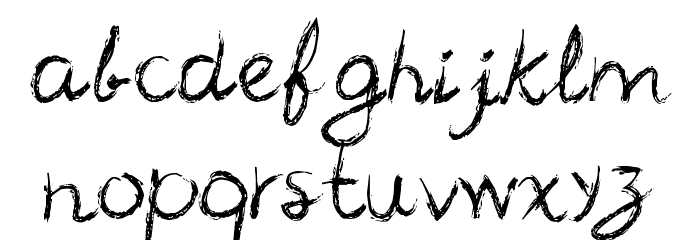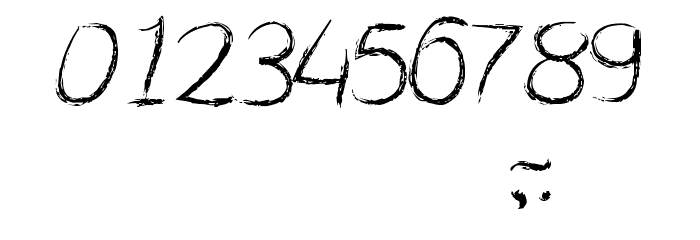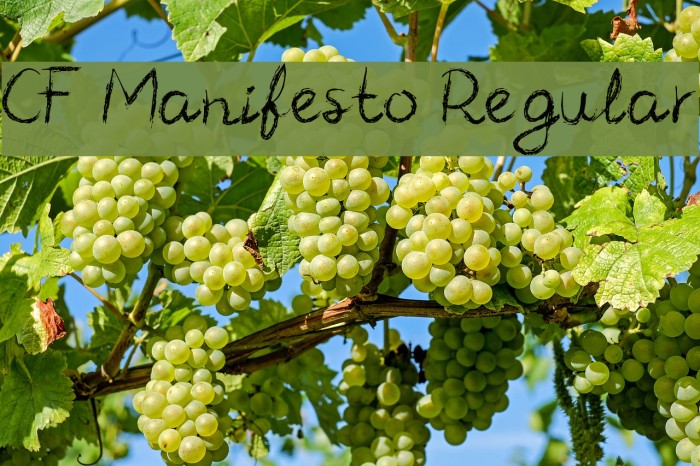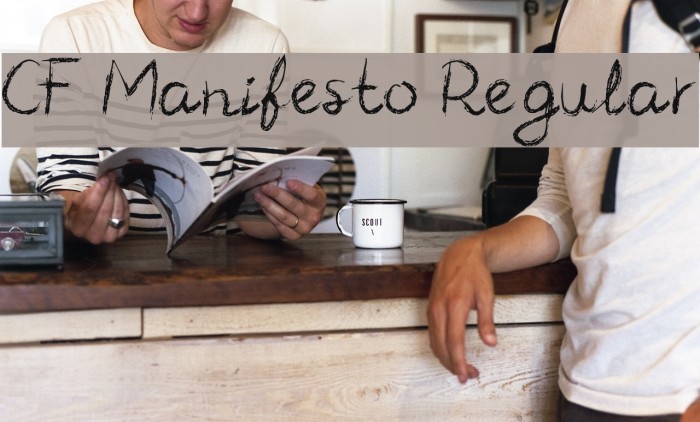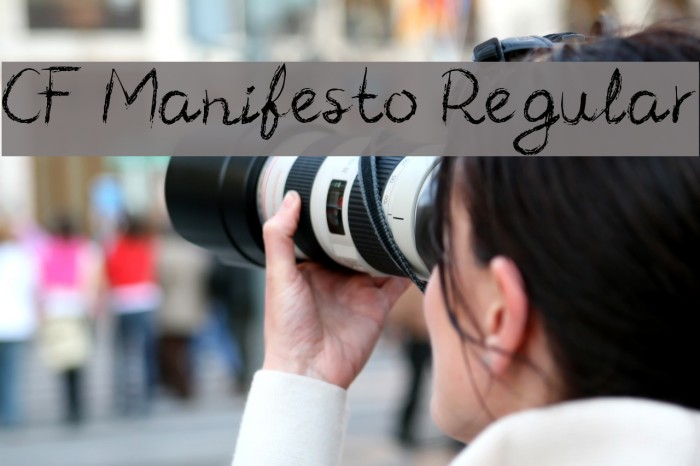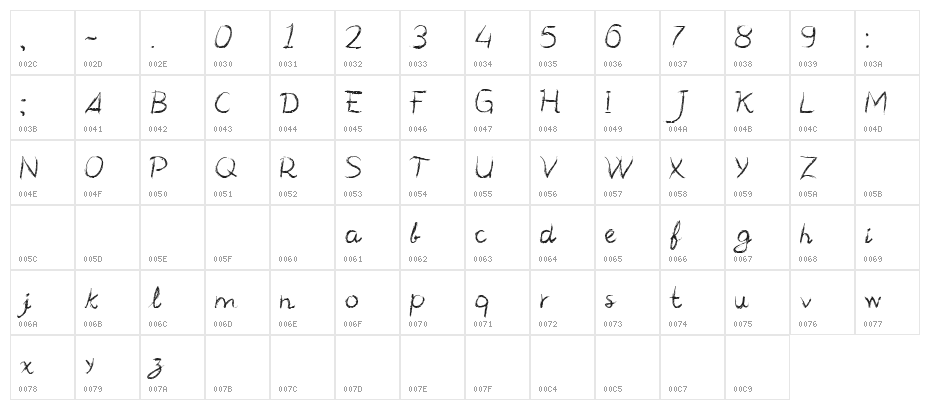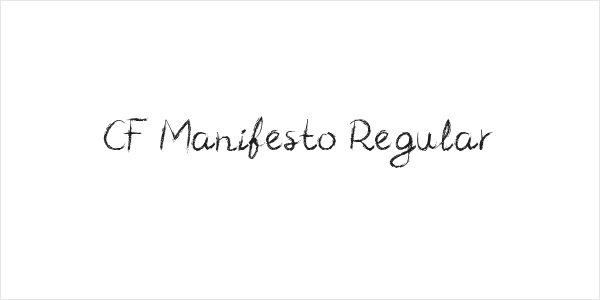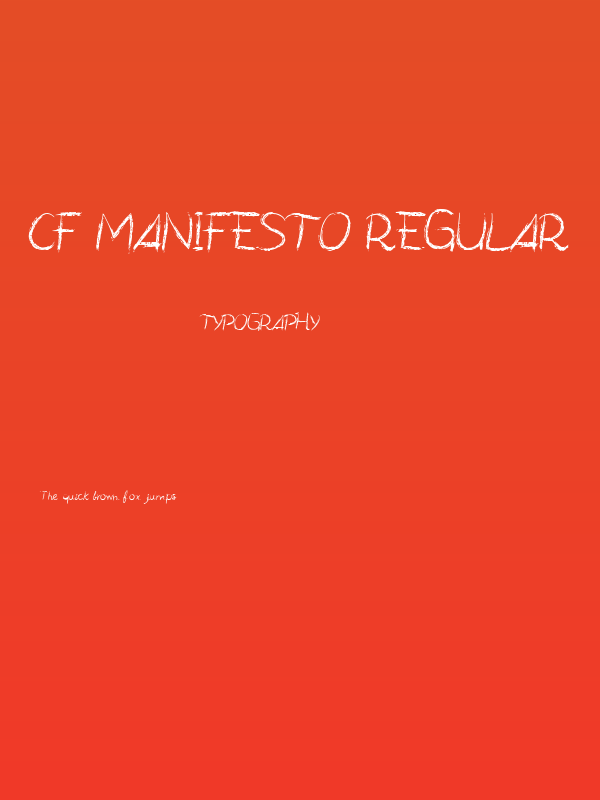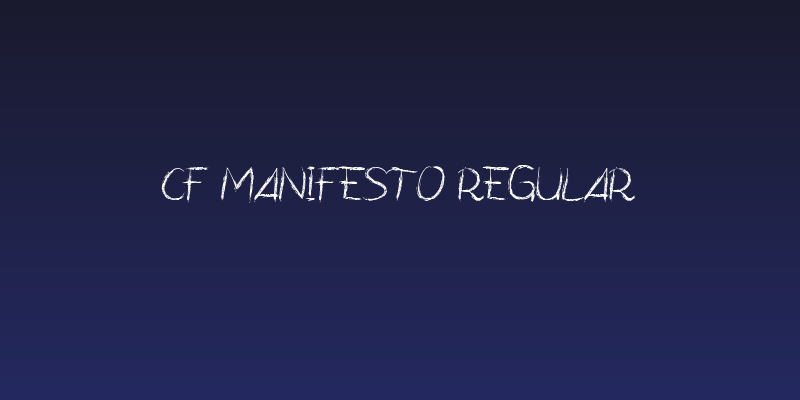
CF Manifesto Regular Font
This font exhibits a dynamic and expressive style, characterized by its brush-like strokes that give it a hand-drawn appearance. The letters are irregular and feature a rough texture, adding a sense of movement and energy. The uppercase and lowercase letters maintain a consistent style, with varying stroke widths that create a lively and artistic look. The numbers and special characters follow the same aesthetic, ensuring a cohesive design throughout. This font is ideal for projects that require a bold and creative touch, such as artistic posters, unique branding, or eye-catching headlines.
A dynamic, brush-like font with expressive, hand-drawn strokes.
- Proposed Projects: Artistic posters, unique branding, eye-catching headlines, creative invitations.
- Use Case: Headlines, Logos, Artistic projects